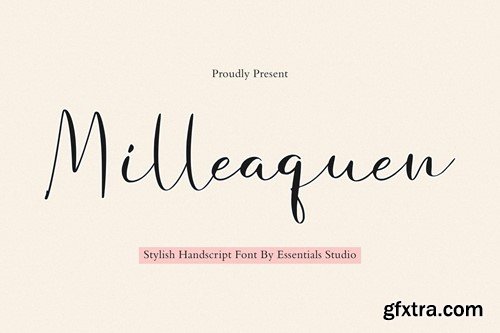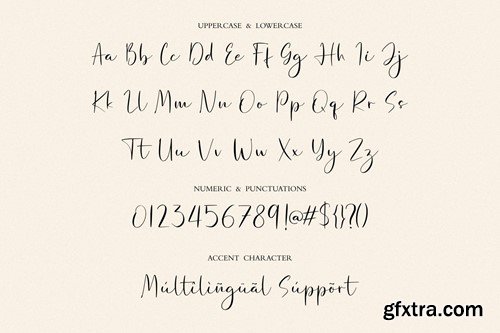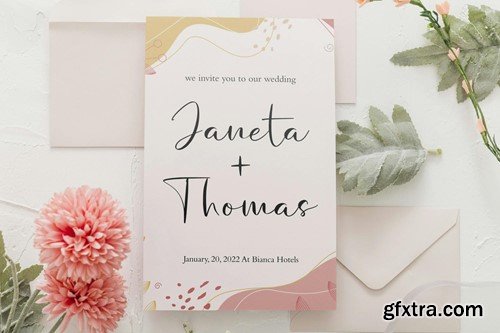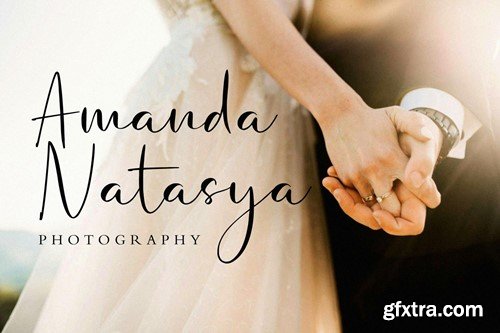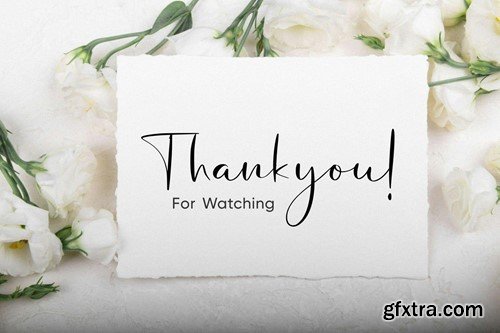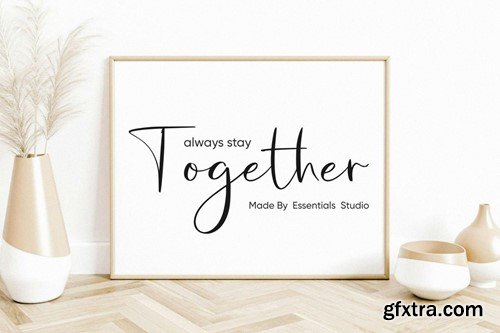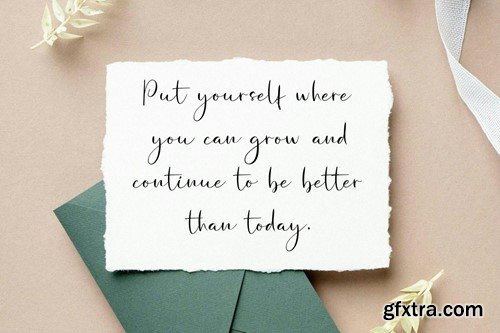
ES Milleaquen - Beautiful Handwritten Script Font
Introducing by Essentials Studio Proudly Present, Milleaquen Is a Stylish Handscript Font Milleaquen is perfect for product packaging, branding project, megazine, social media, wedding, or just used to express words above the background. This font includes : OTF, TTF & WOFF Also Multilingual Support Enjoy the font, feel free to comment or feedback, send me PM or email Thank You.